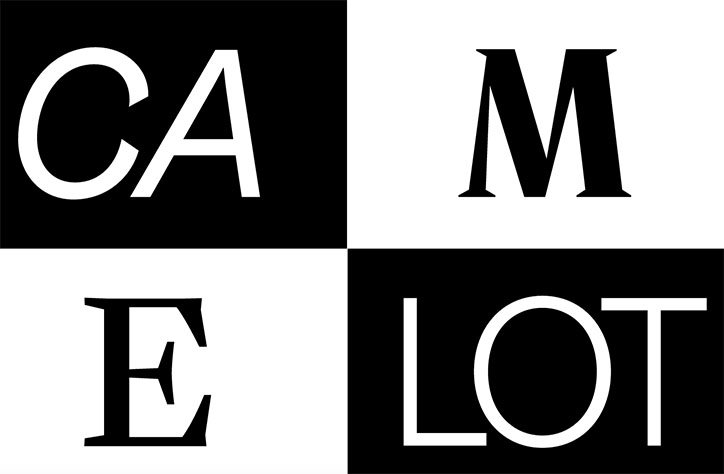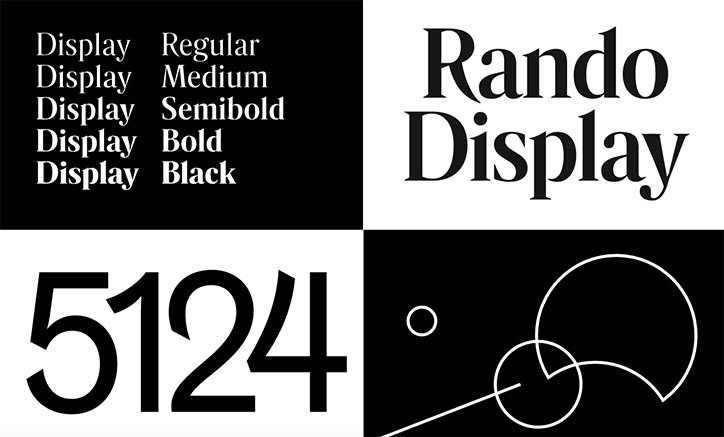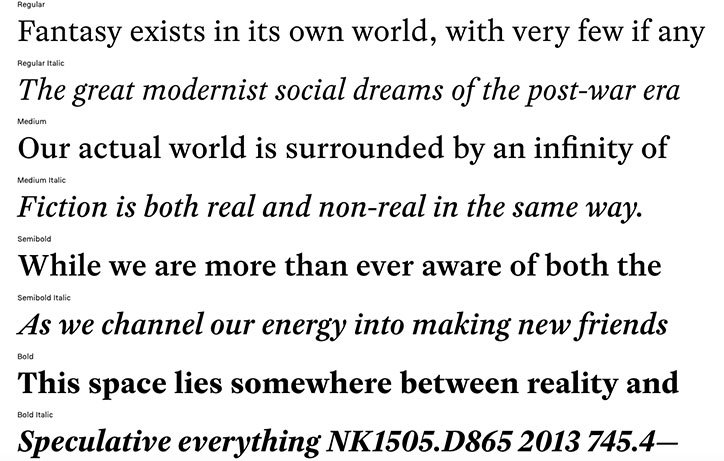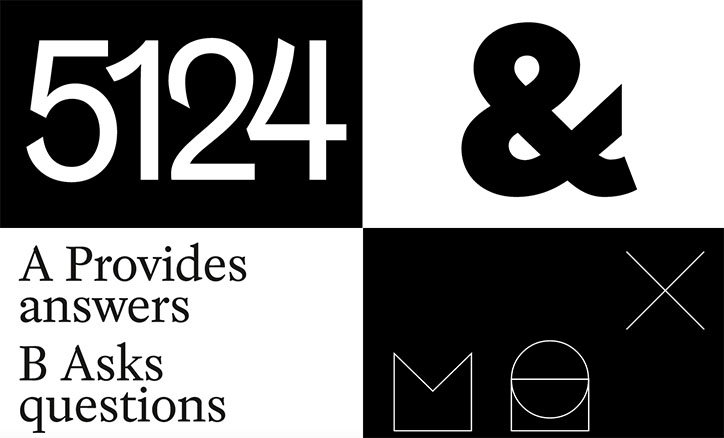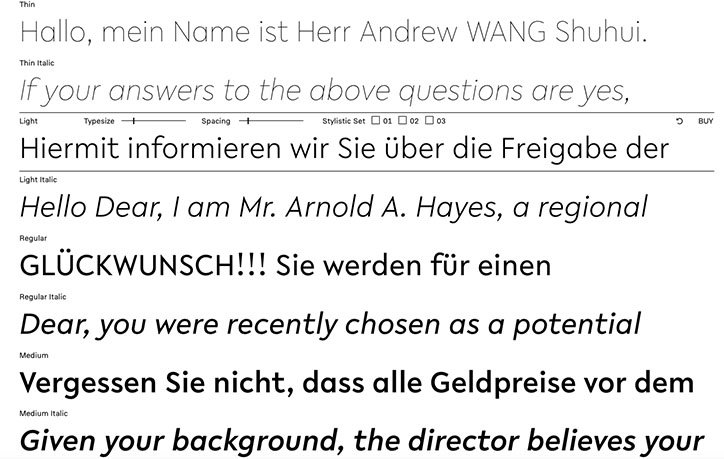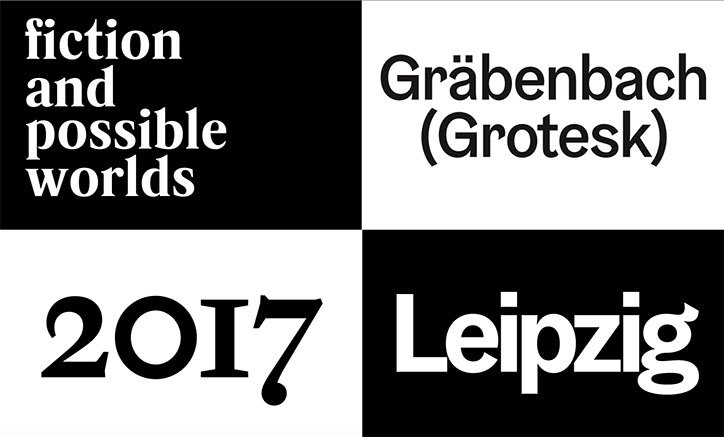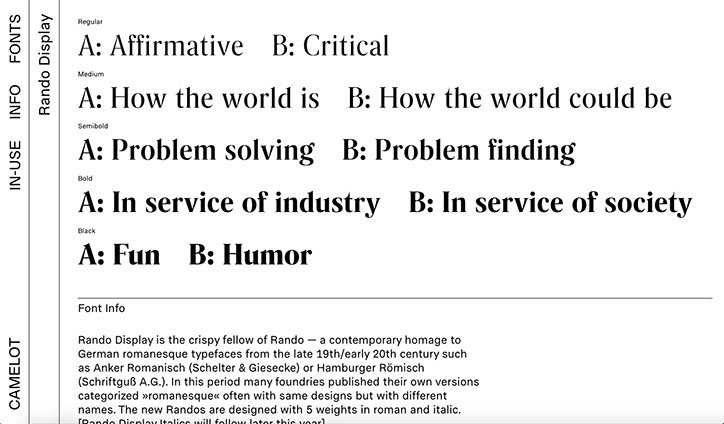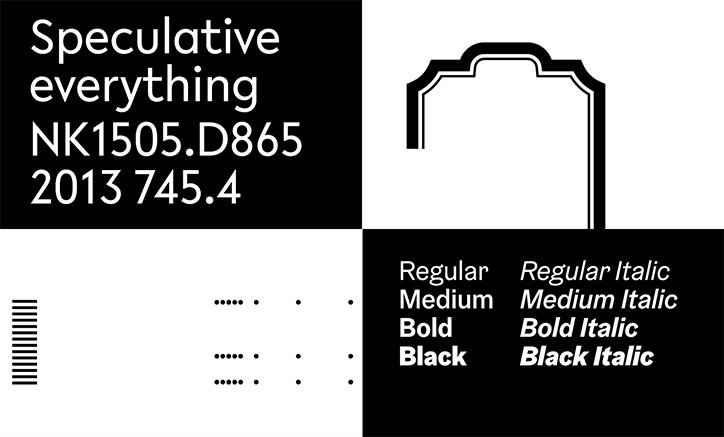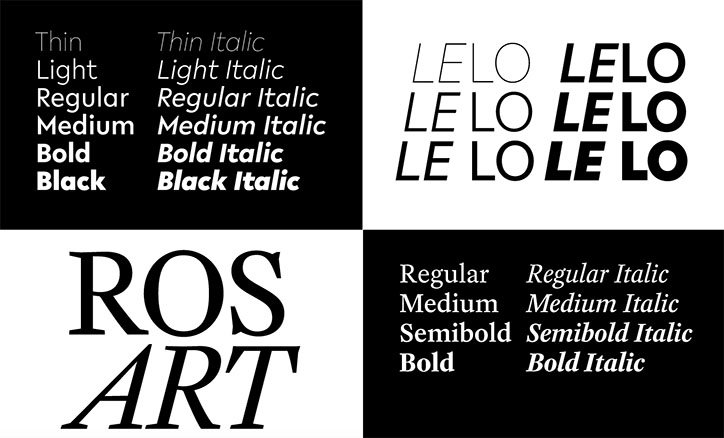
Camelot’s typefaces bring both the contemporary and historical to the table
Independent foundry Camelot designs typefaces inspired by history – both canonical and vernacular – and informed by contemporary life, and technology. Founded by Maurice Göldner, Katharina Köhler and Wolfgang Schwärzler; the Leipzig-based foundry instantly fell into favour with its fellow designers, having been used by the likes of OK-RM, Fabian Bremer and in Ortner Schinko’s identity for Sigrid Stöckl.
Its Rando typeface is an homage to the German Romanesque architectural style from the late-19th Century; Rosart, a text typeface based on a specimen by designer Jacques-François Rosart from the 18th Century is updated with shorter curves for digital application; and Gräbenbach, inspired by grotesque type and hand-painted signs, is a typeface that combines the sharpness of digital design with the warmth of hand-drawing. Their newest typeface, Lelo, is based on monospaced typewriter fonts, updated with a jarring combination of pointy and rounded edges. The foundry’s work balances being scholarly and contemporary with ease, being informed by but not tied to history.